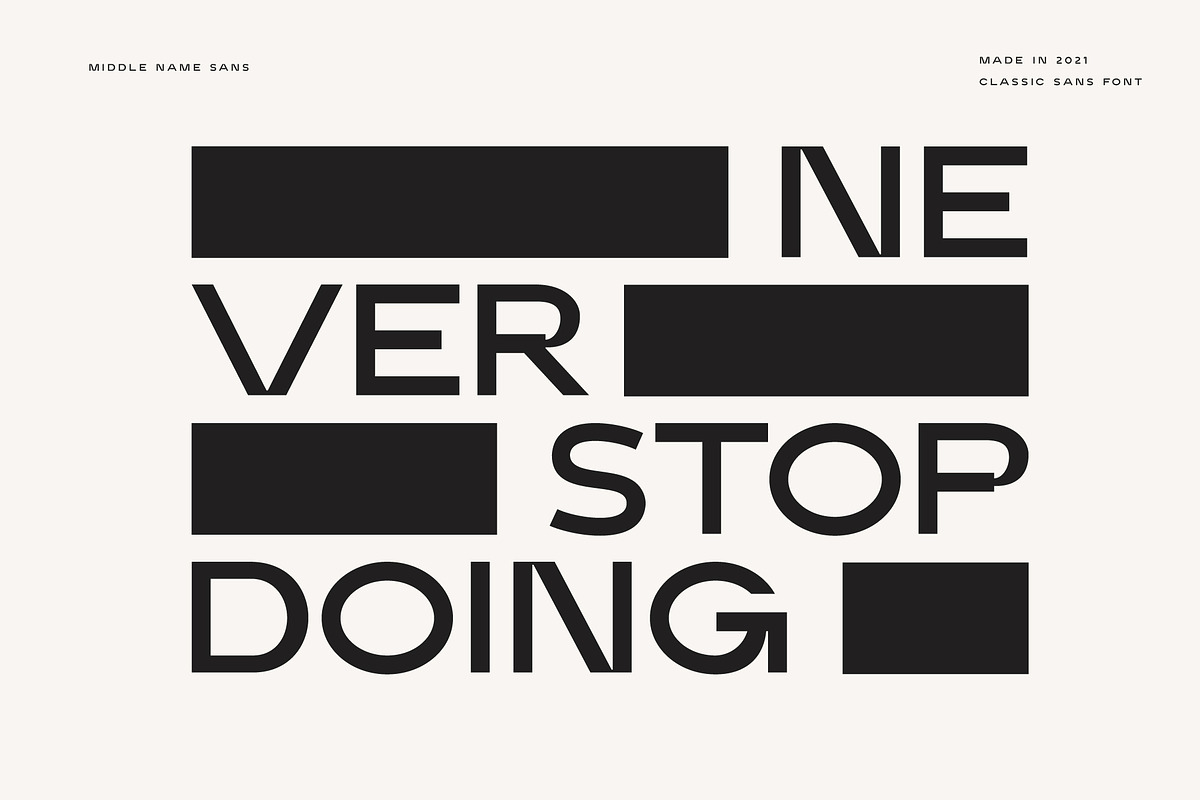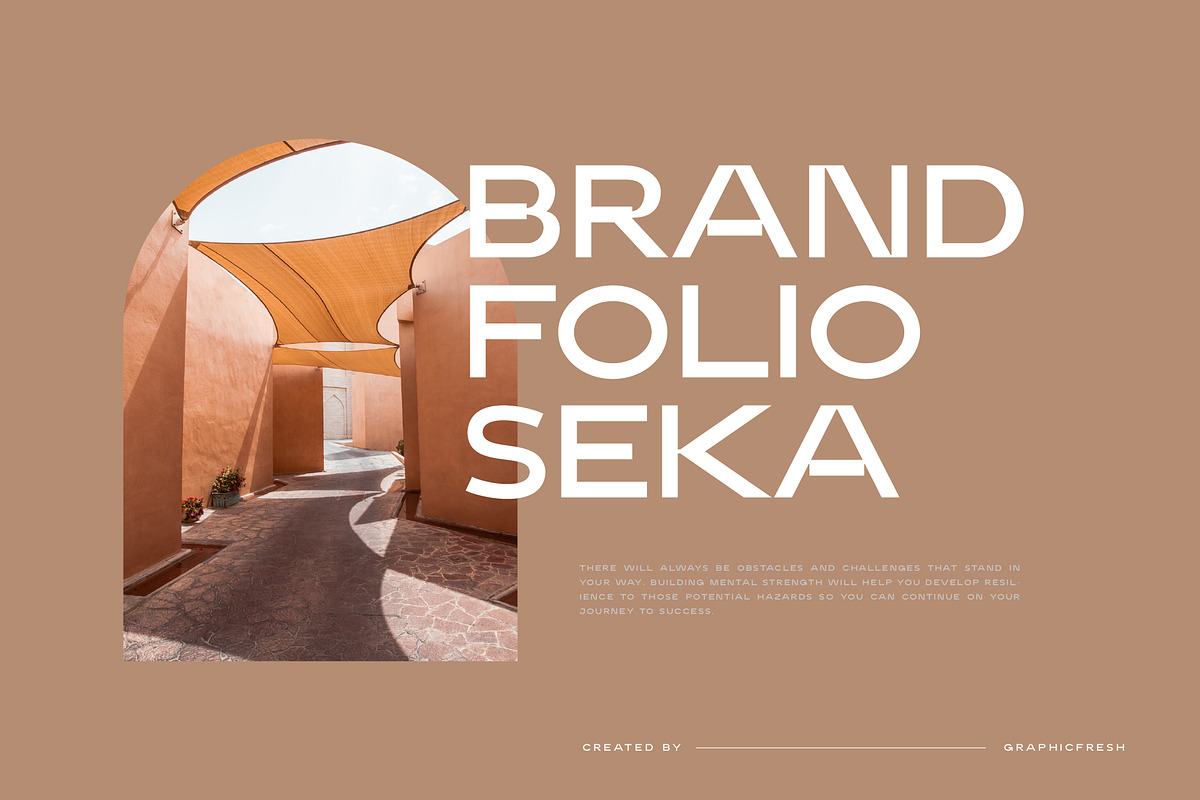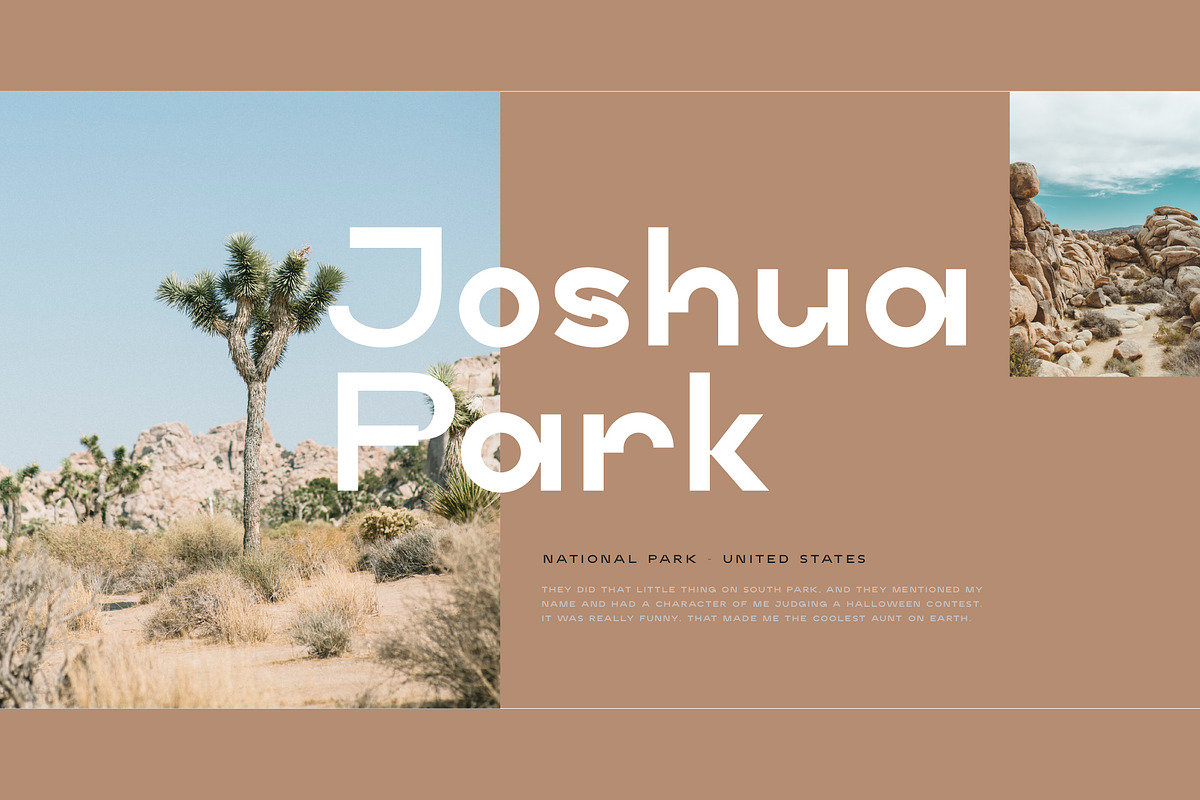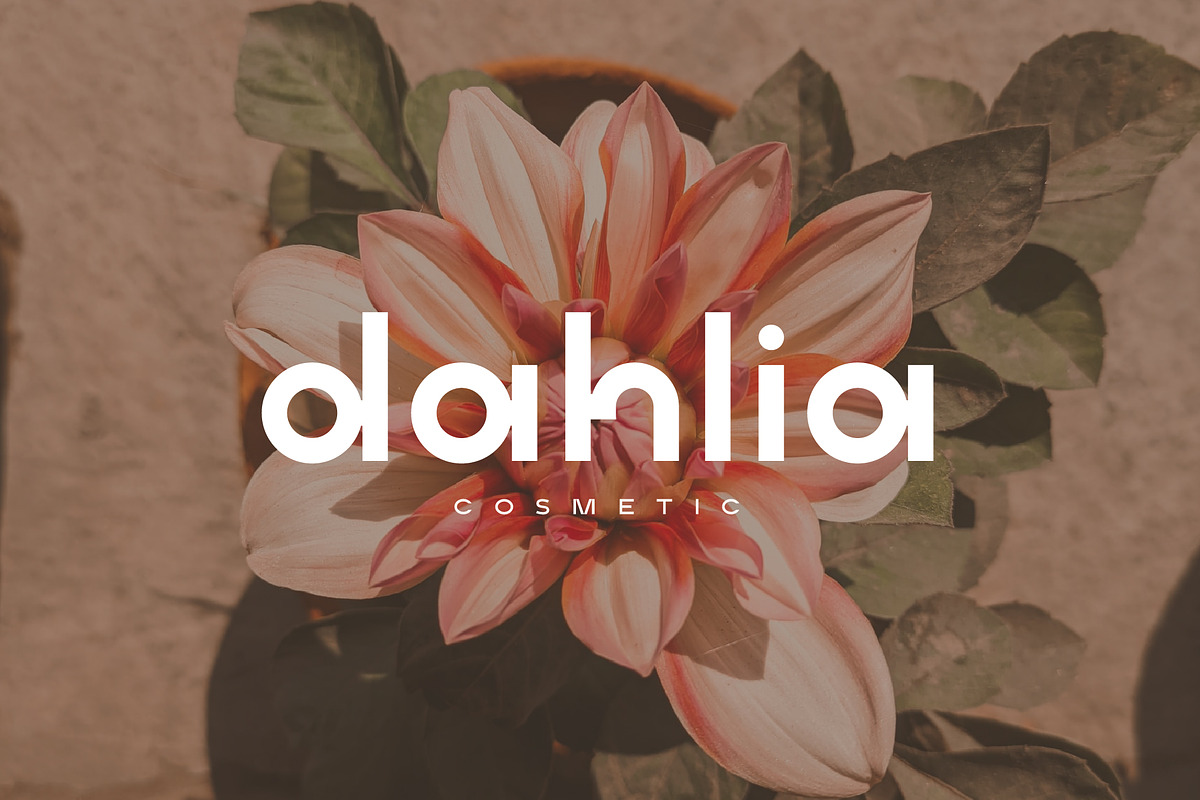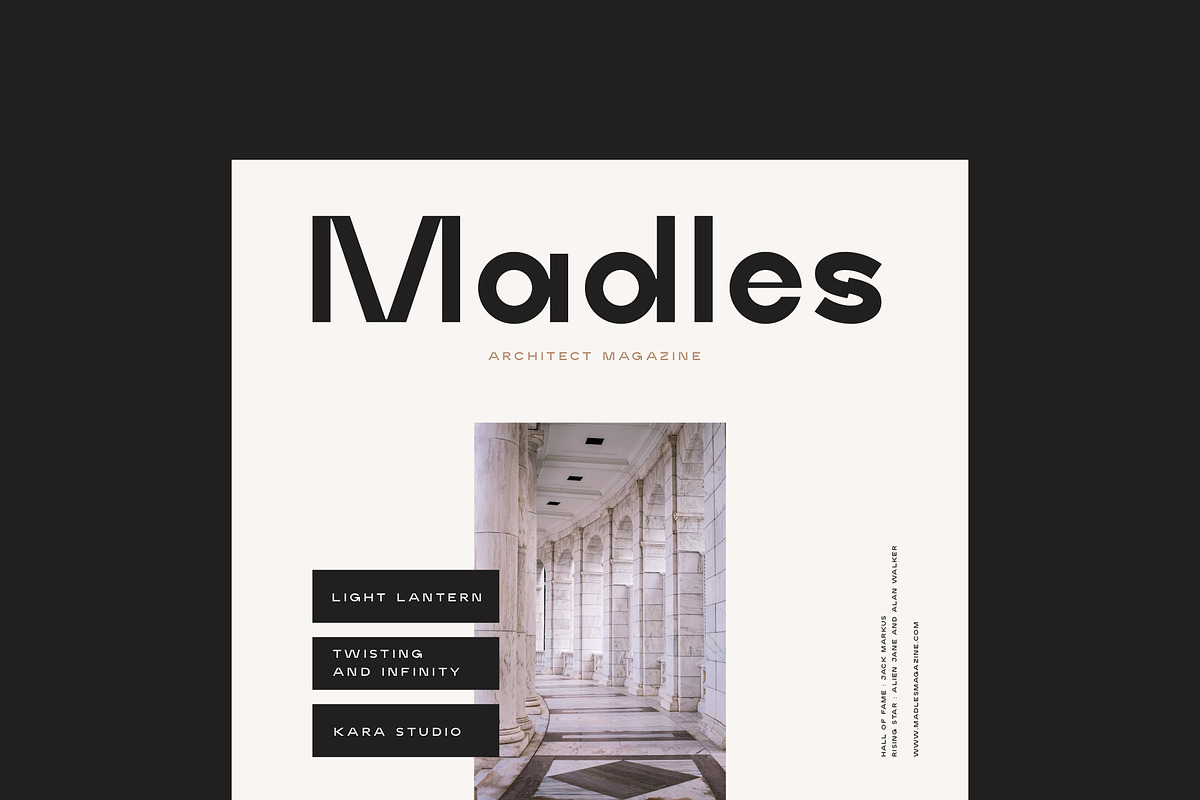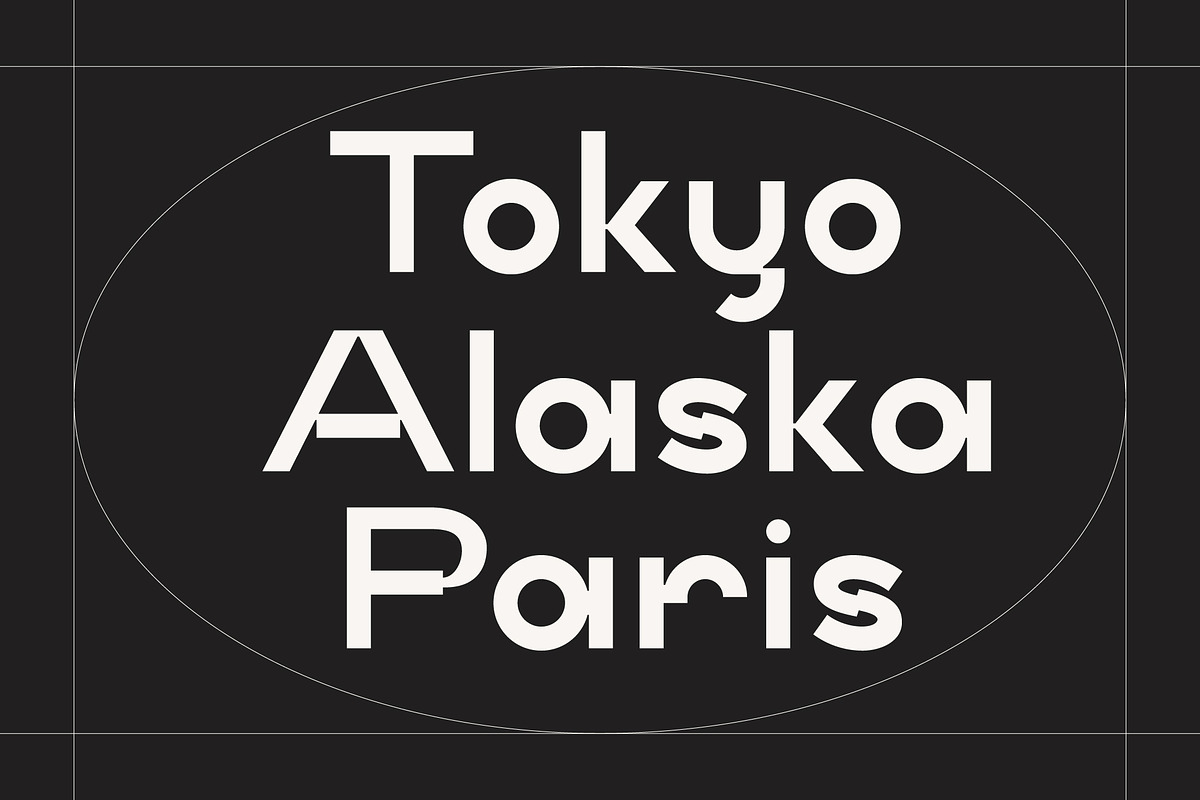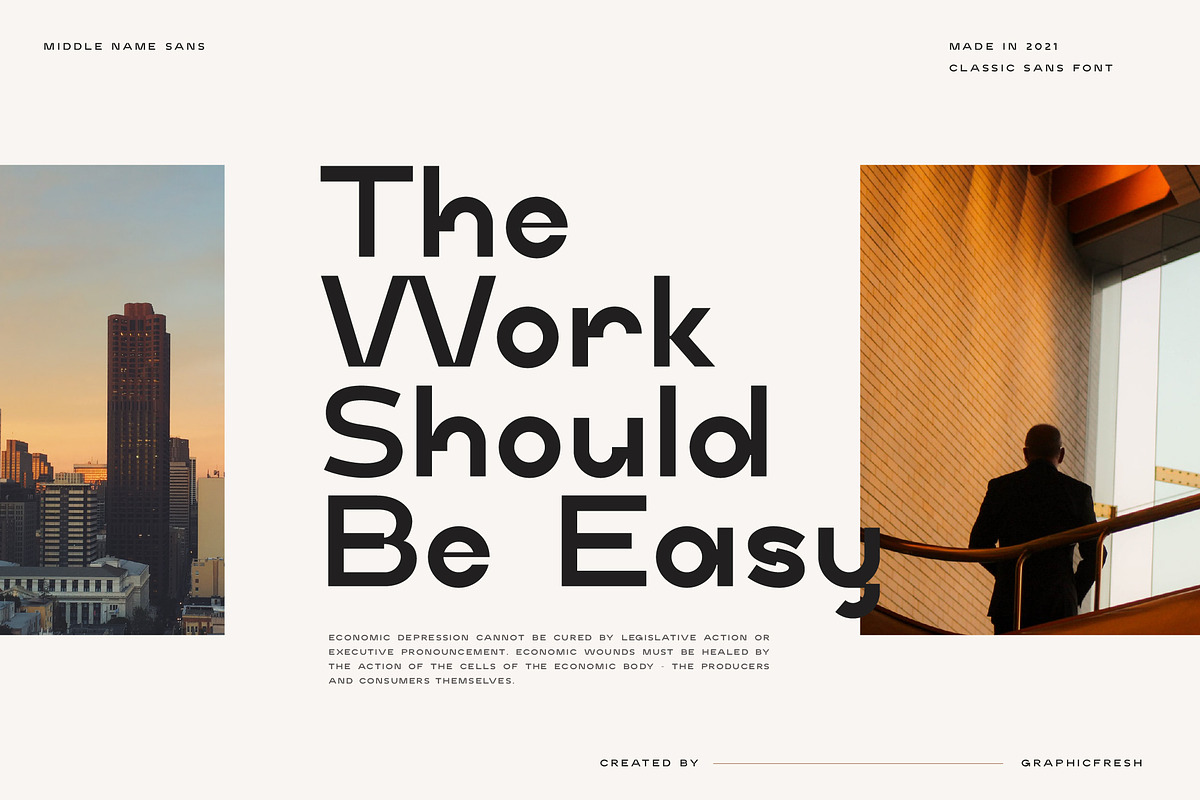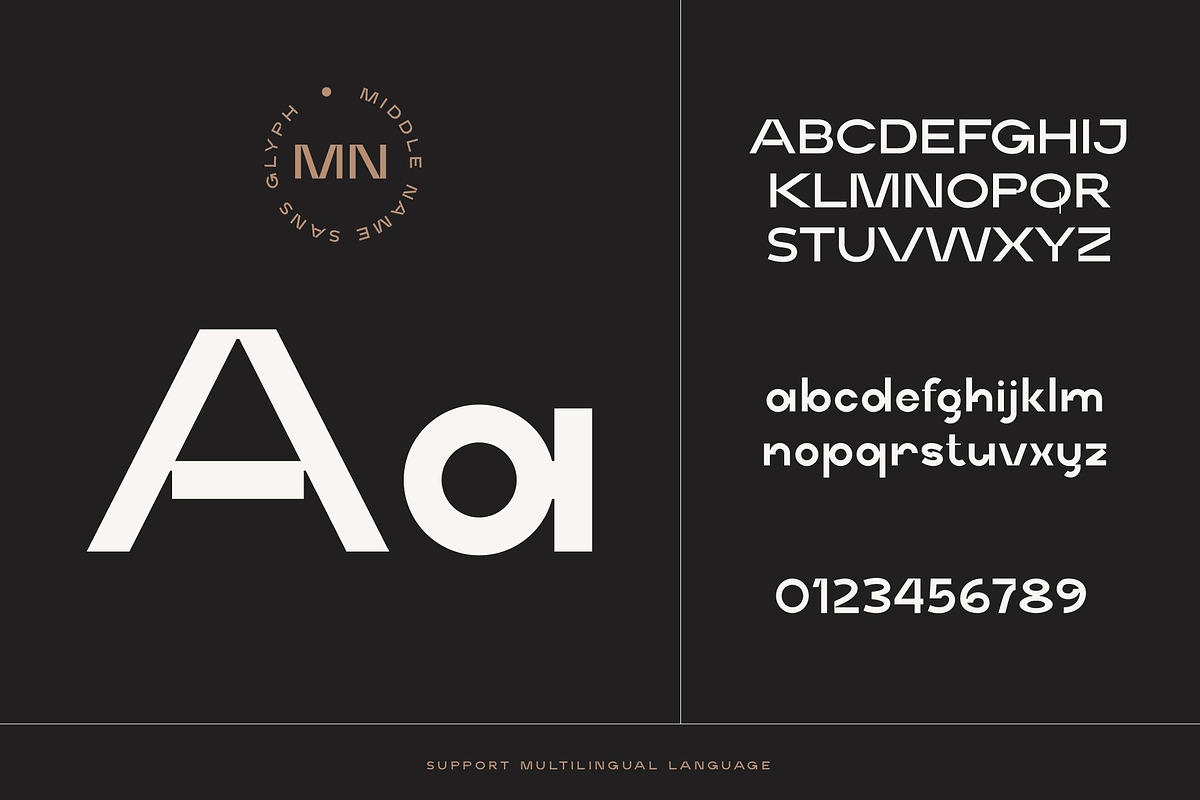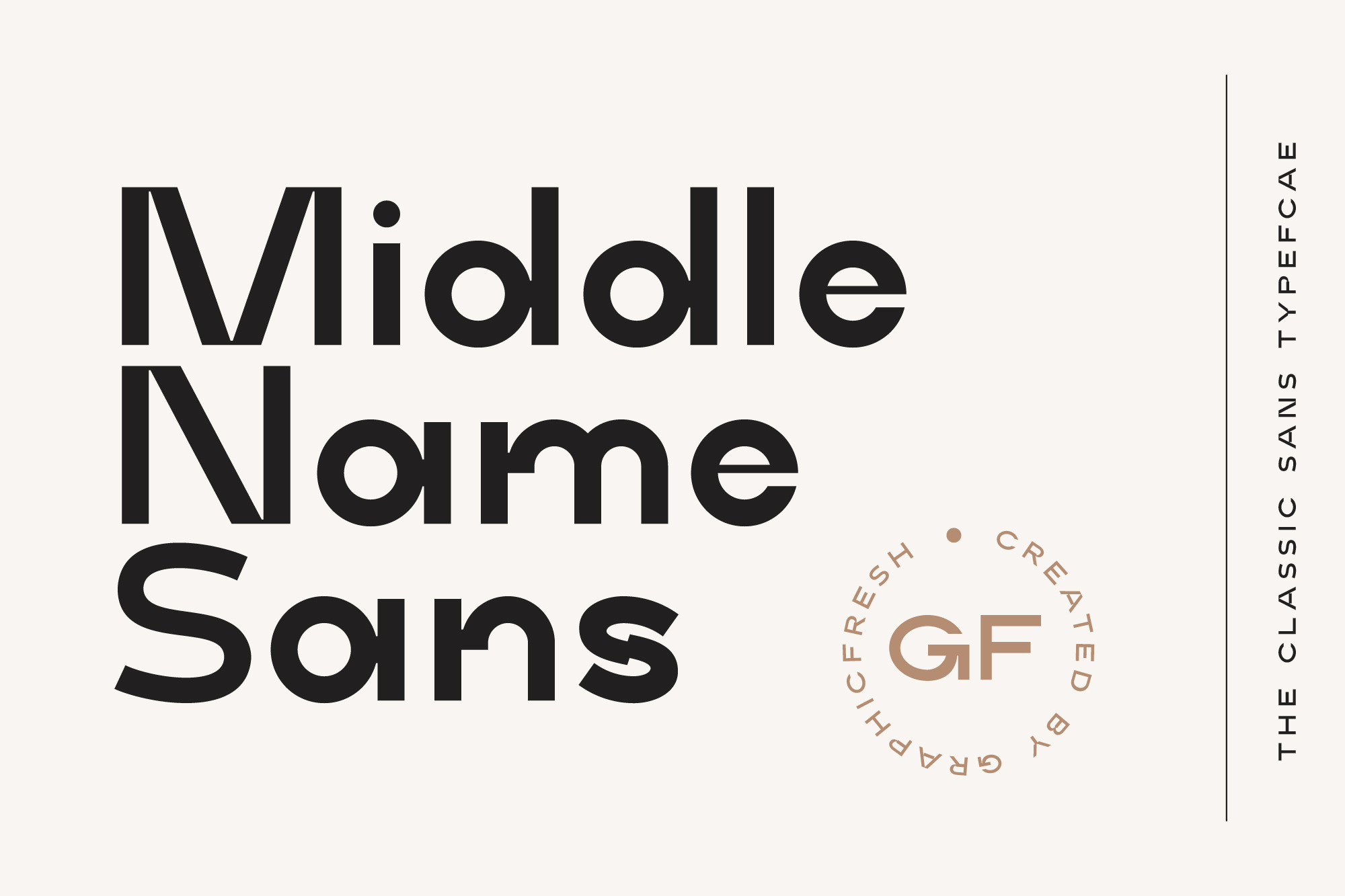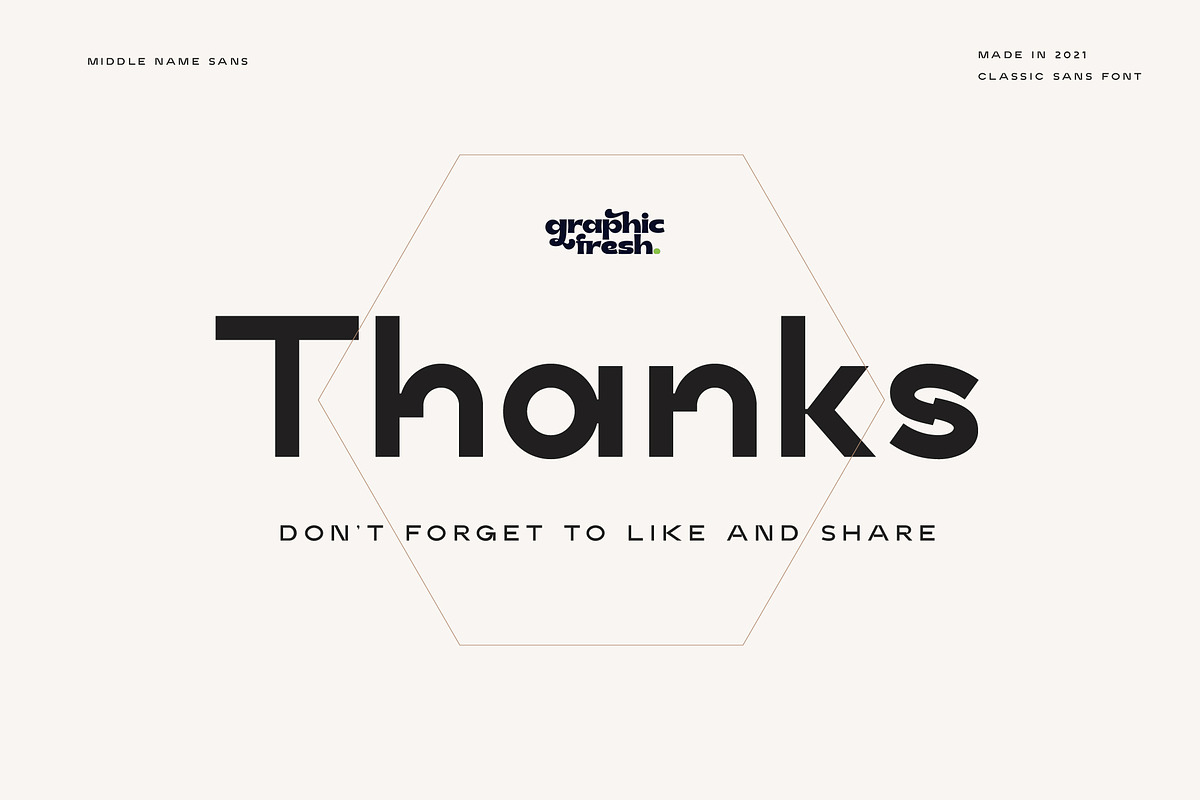
Middle Name - Minimal Classic Font
Middle Name Sans is a geometric styled font. However, the design strays from the natural limitations of many sans-type fonts. Its eccentric style with a mix of today's styles makes this font suitable for various purposes. We added a bit of a classic touch to it. So that users can reminisce with the style of the past.
You can create various designs with this font. Such as logos, posters, design templates, magazines, flyers and others. The strong character of the letters makes your design feel more modern and minimalist.